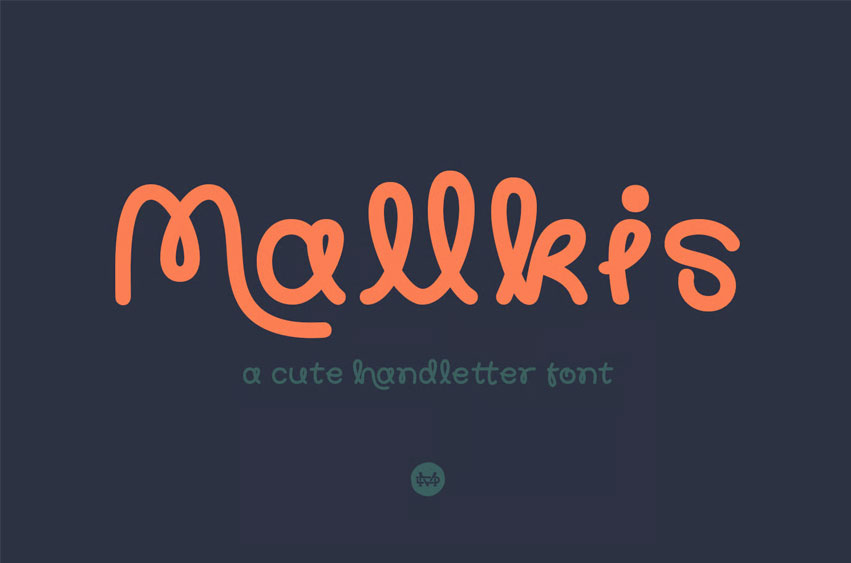
Mallkis Font is a cute handlettering font. Playful with this font has the potential to bring each of your creative ideas. Combine with standard and special glyphs so you can create a lot with layouts and compositions. Mallkis brings a touch of custom typography to logos, websites, social media quotes, wedding branding, and more.